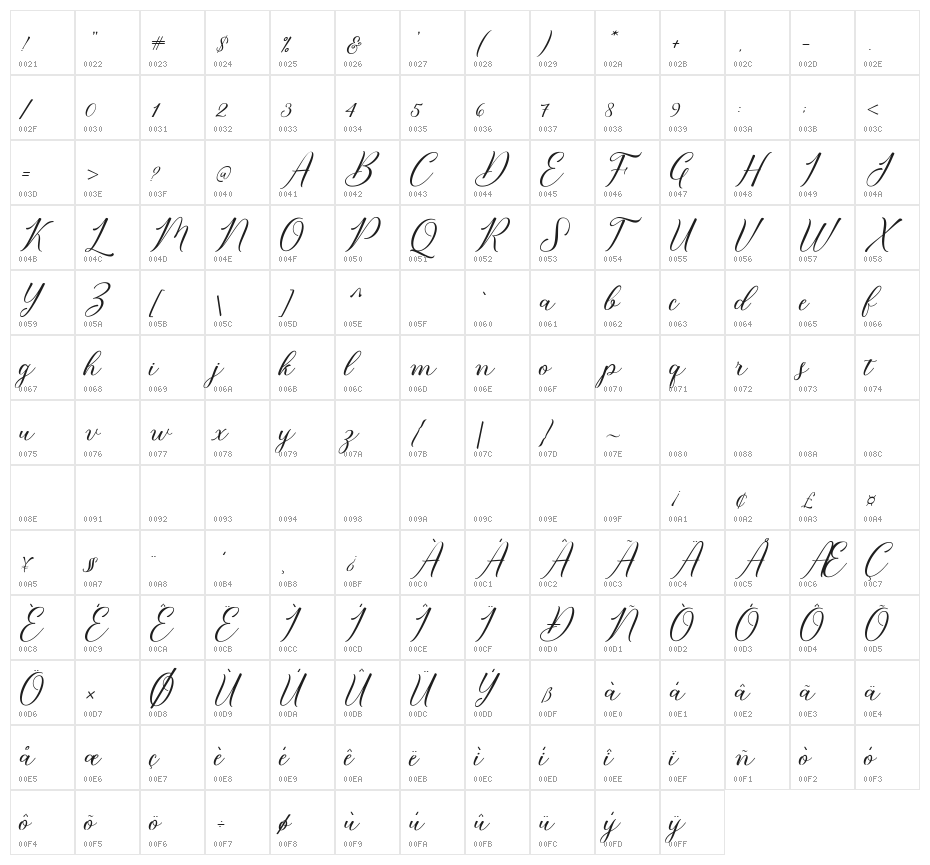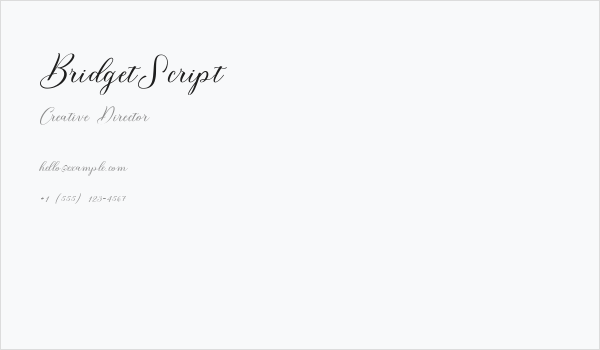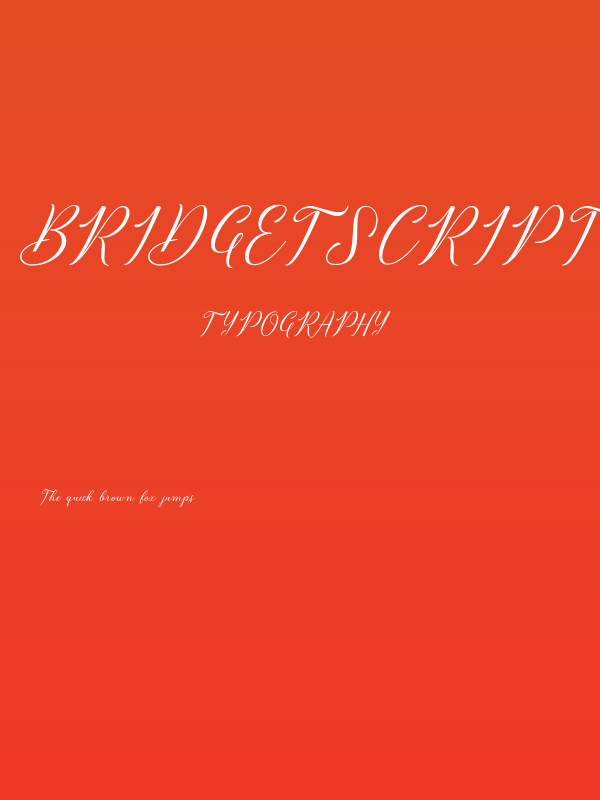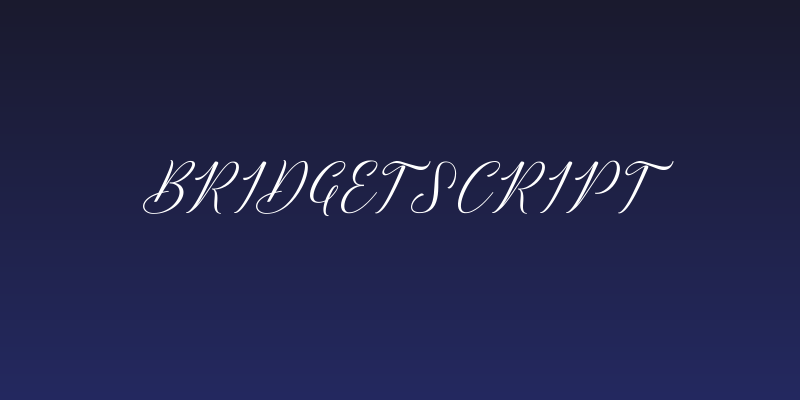
BridgetScript Font
| Stile generale | Elegant, Decorative |
| Caso d'uso | Logos, Invitations, Decorative text |
| Progetti proposti | Ideal for wedding invitations, elegant branding, greeting cards, and high-end product packaging. |